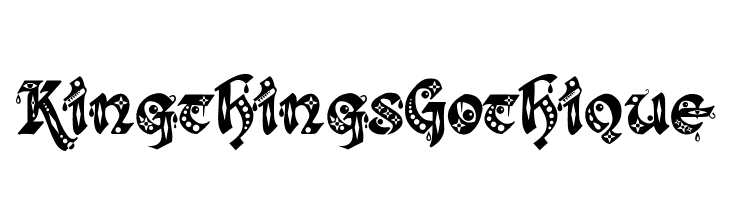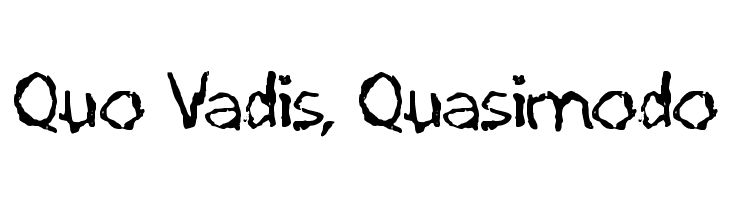
An ornate, gothic-style font with intricate decorative elements.
A bold, narrow font with high contrast and elegant styling.
A bold, rounded, and italic font with a modern and dynamic style.
A bold, playful font with a modern and friendly design.
A bold, expressive handwritten font with dynamic strokes and a playful style.
A bold, playful font with rounded edges and a whimsical style.
A sleek, ultra-lightweight font with a modern, minimalistic design.
A playful handwritten font with irregular strokes and a casual style.